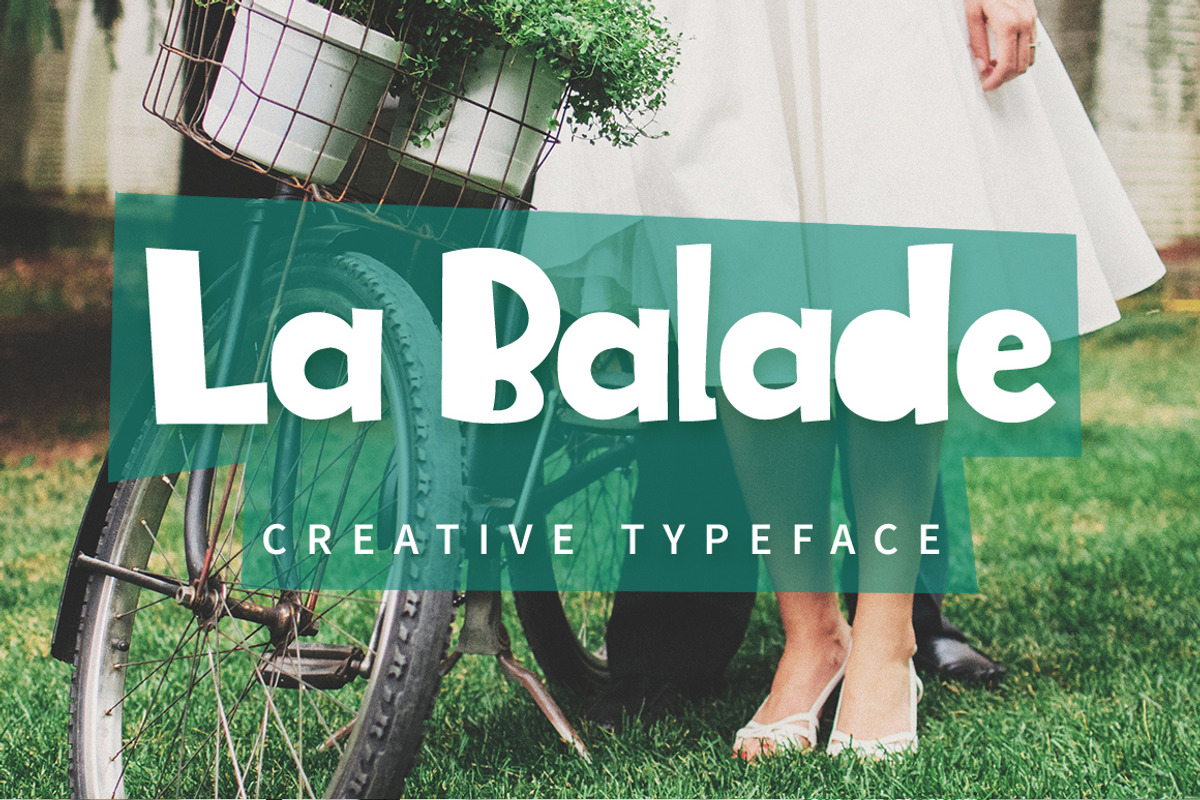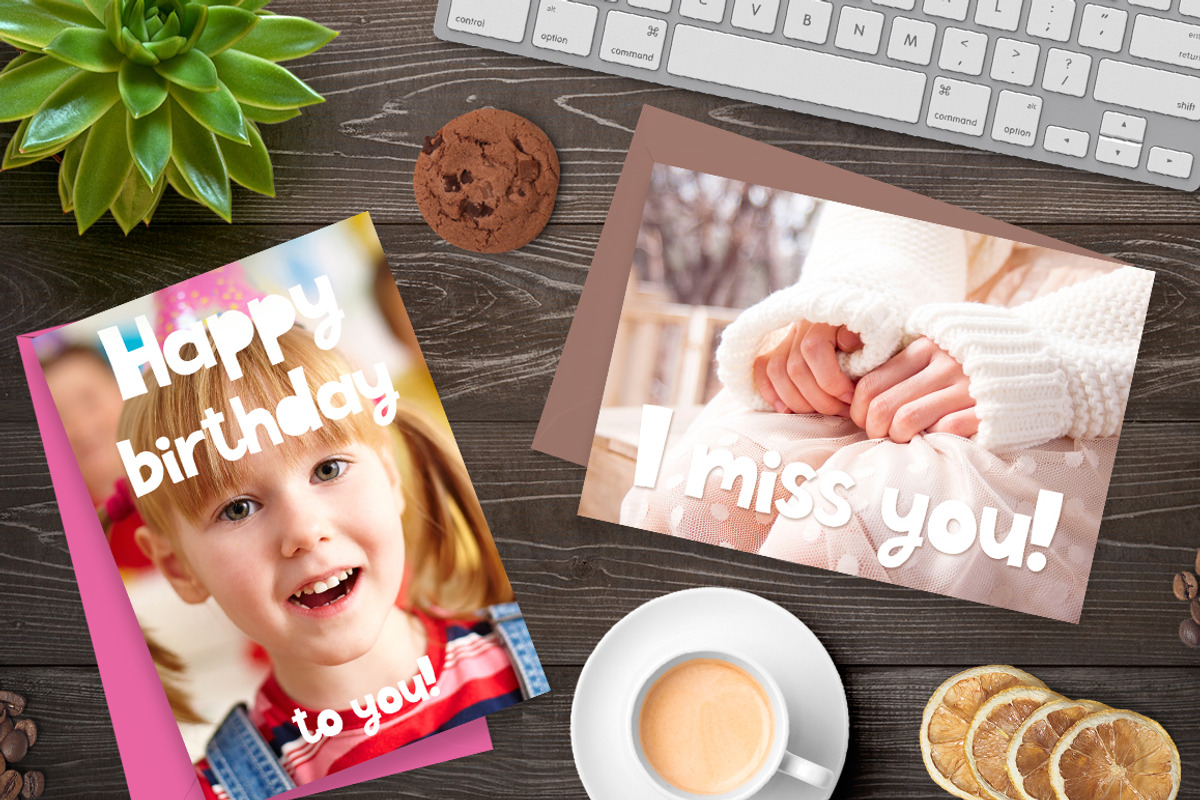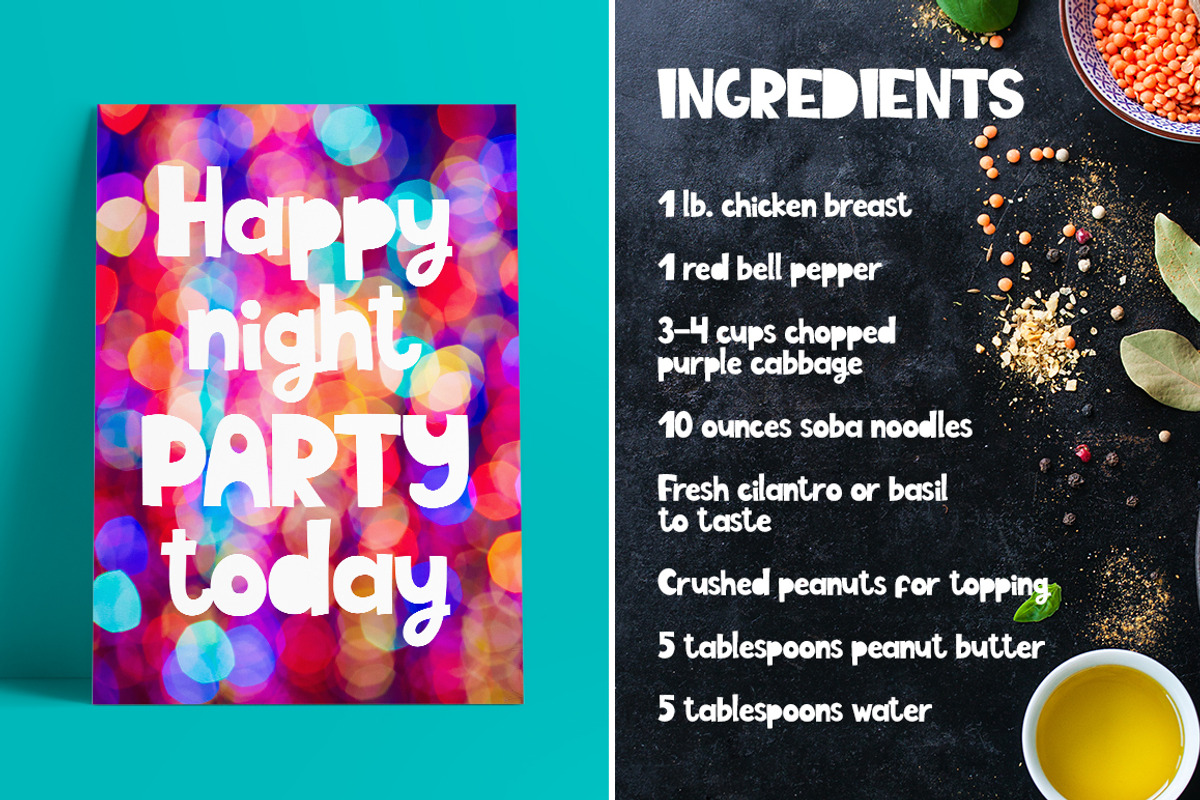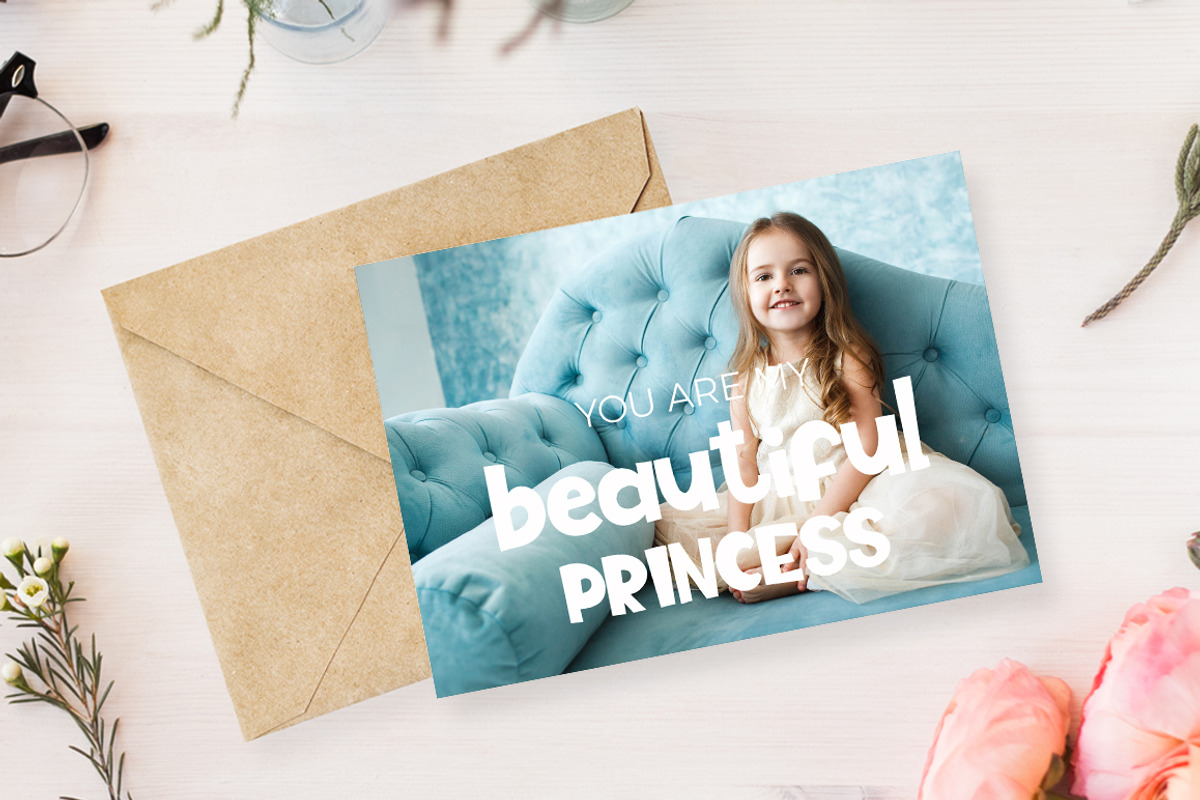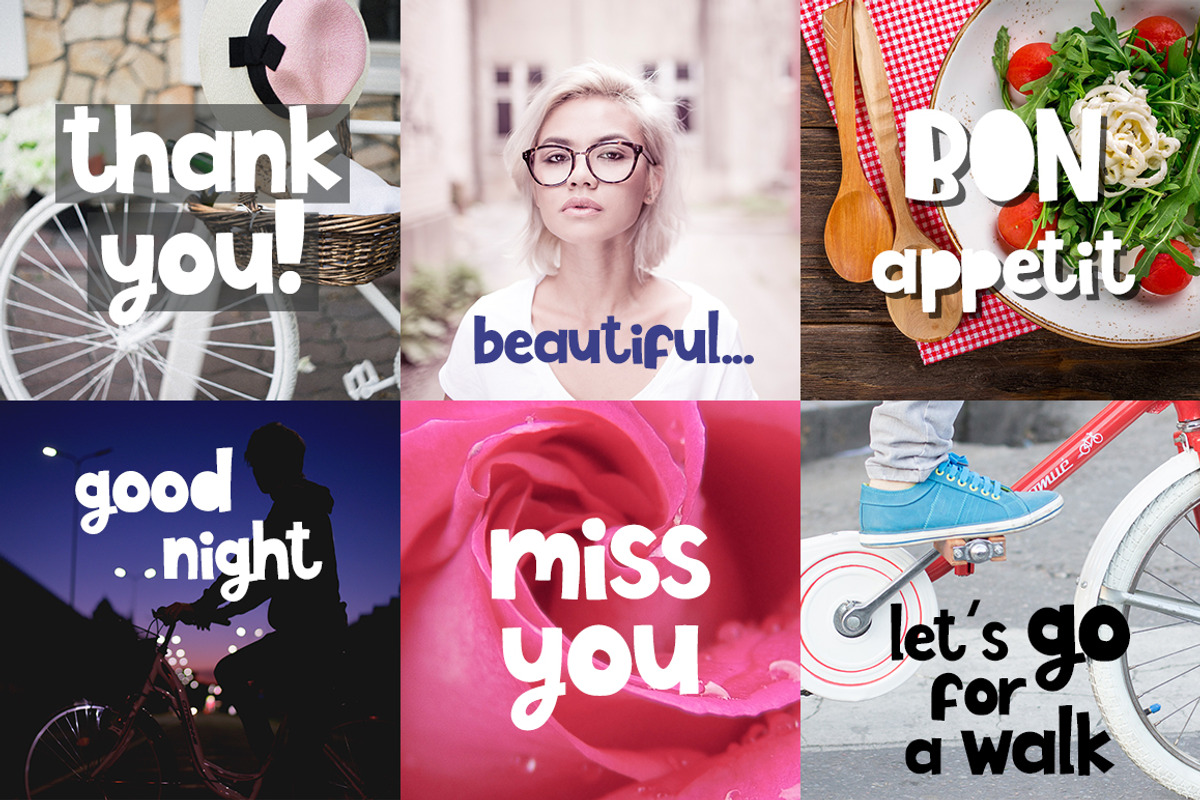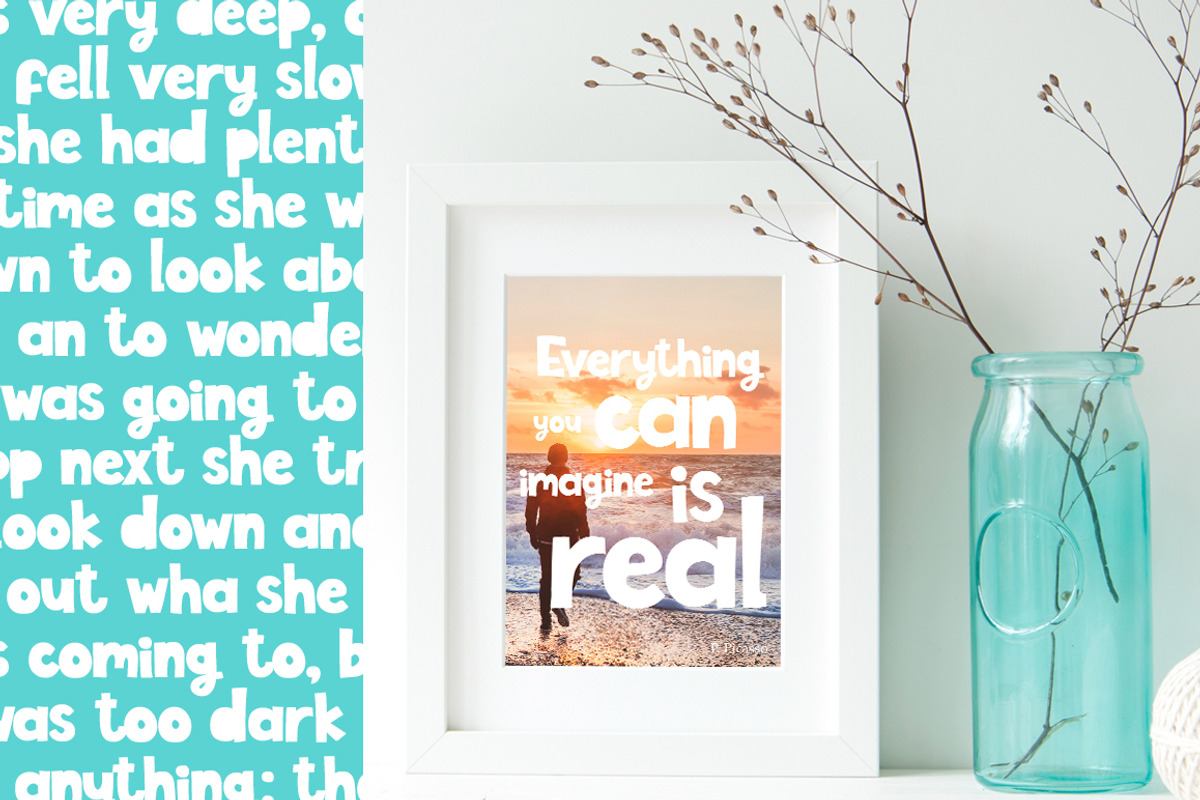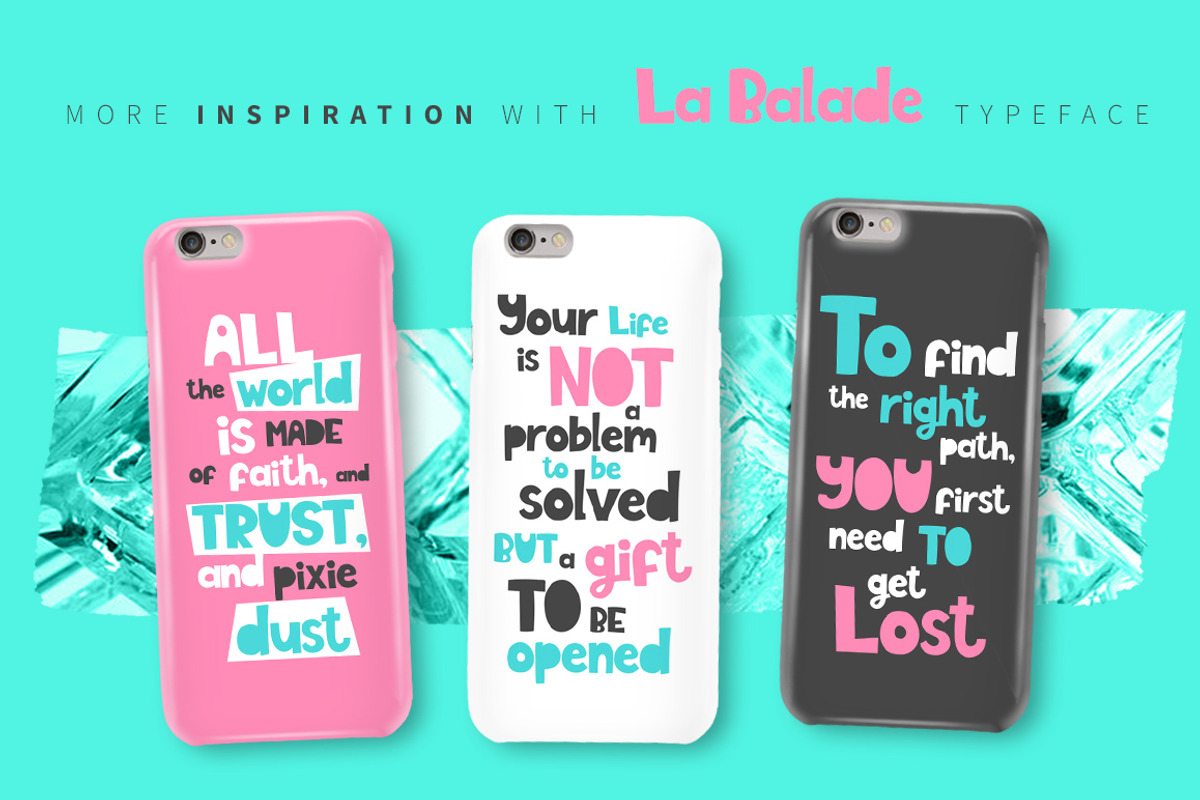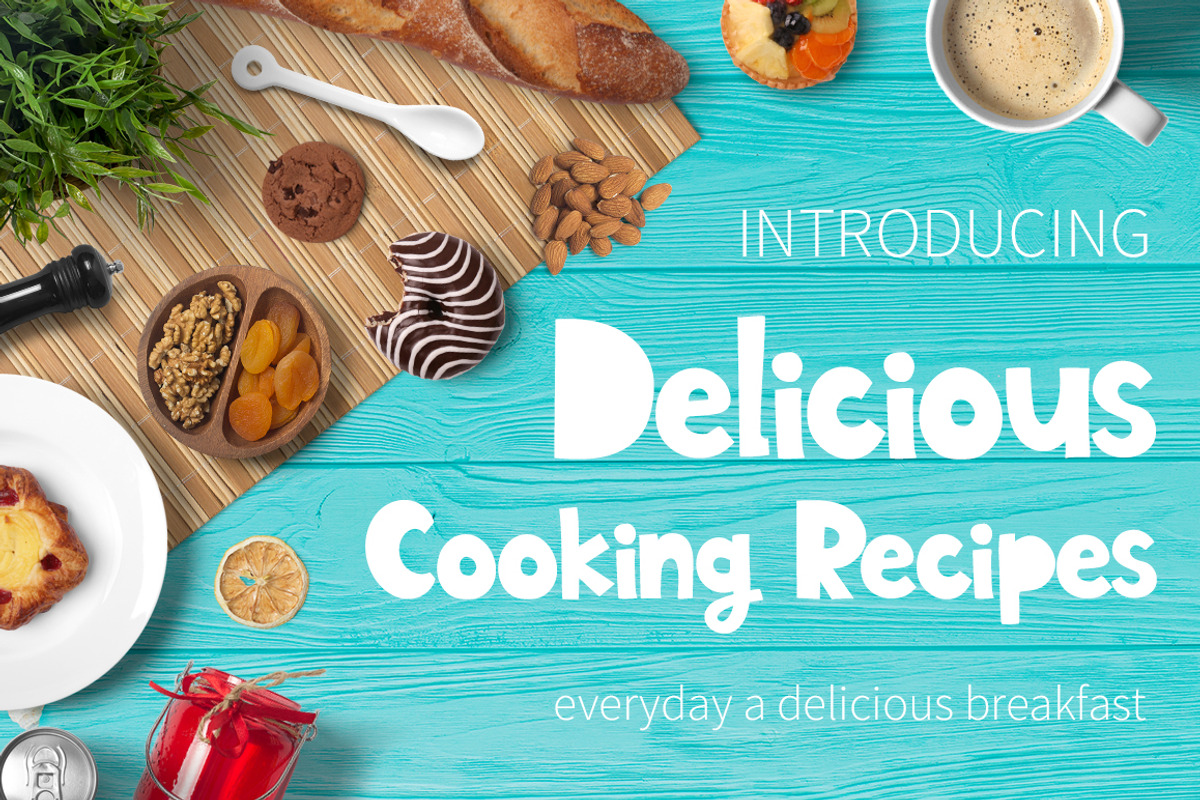
La Balade - Creative Typeface
♥ La Balade - Creative typeface! Font for your funny projects! ♥ This script is perfect for cards, prints, logos, invitations, arrange illustration and decoration. Good for children. It has upper and lower case letters, numbers, special characters, accents.